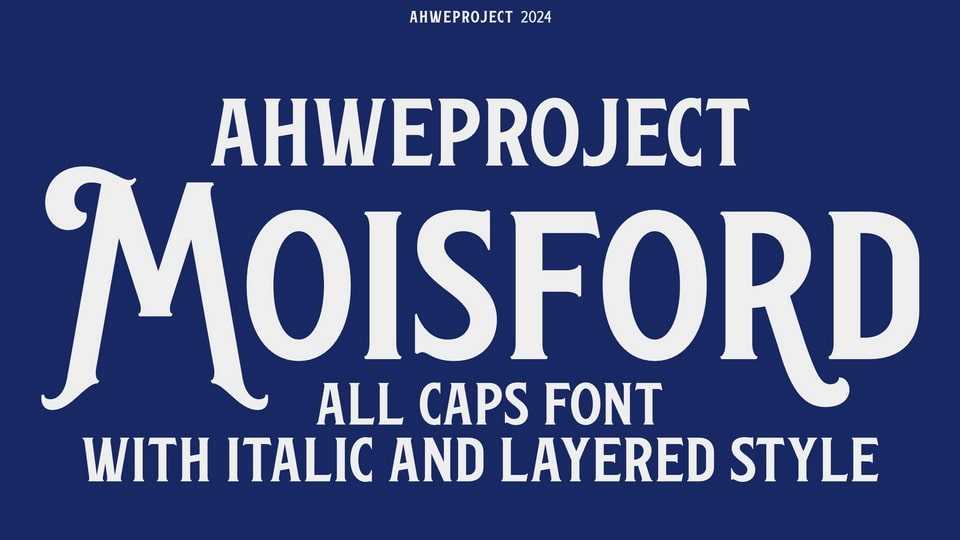
Download Moisford font, an exquisitely handcrafted typeface mindfully designed to enhance both visual and emotional appeal in your creative projects.